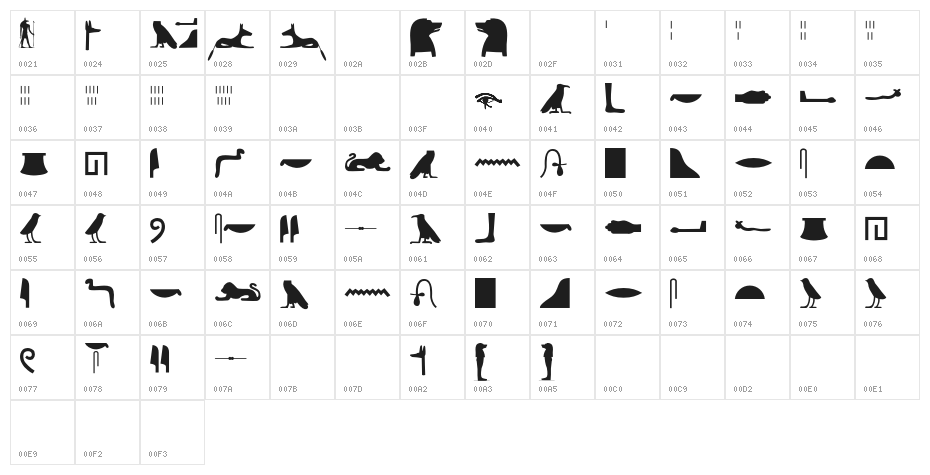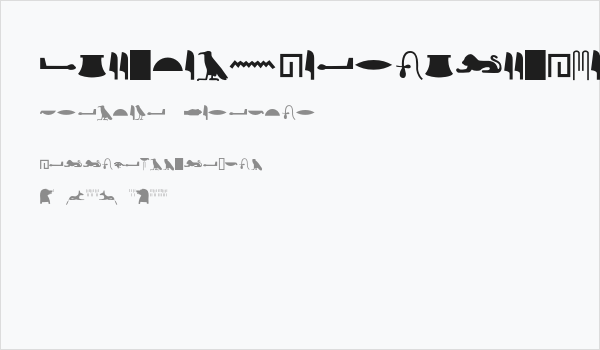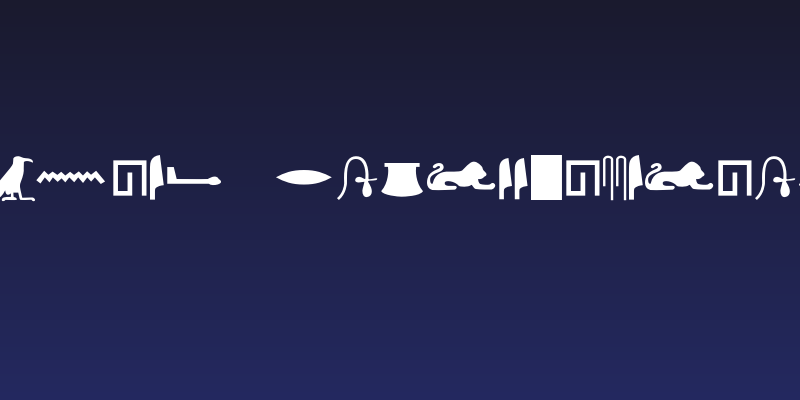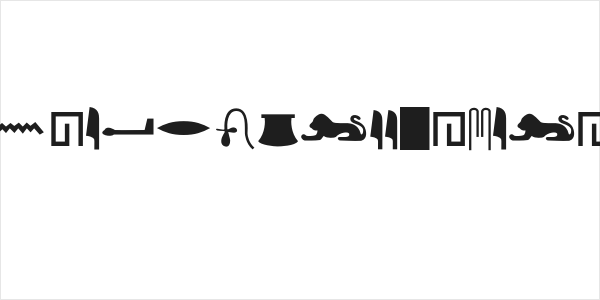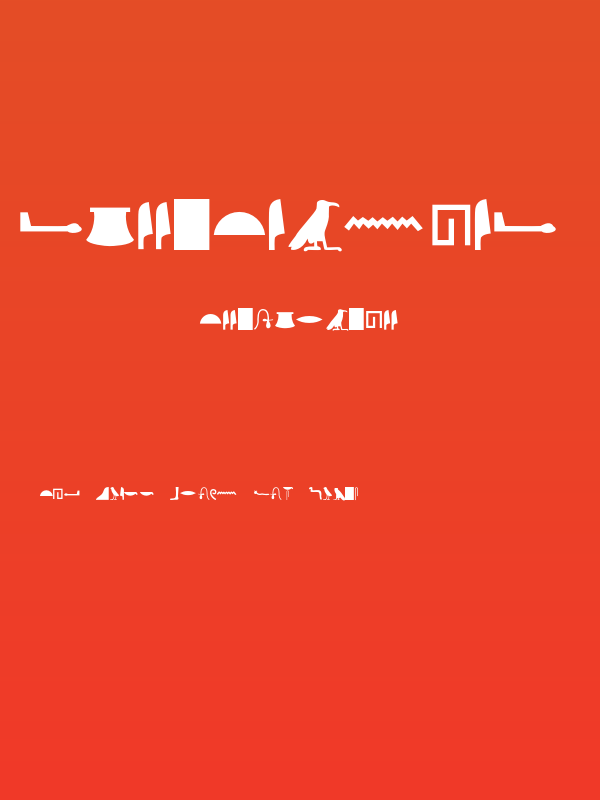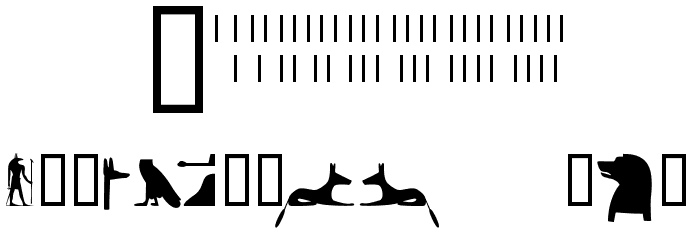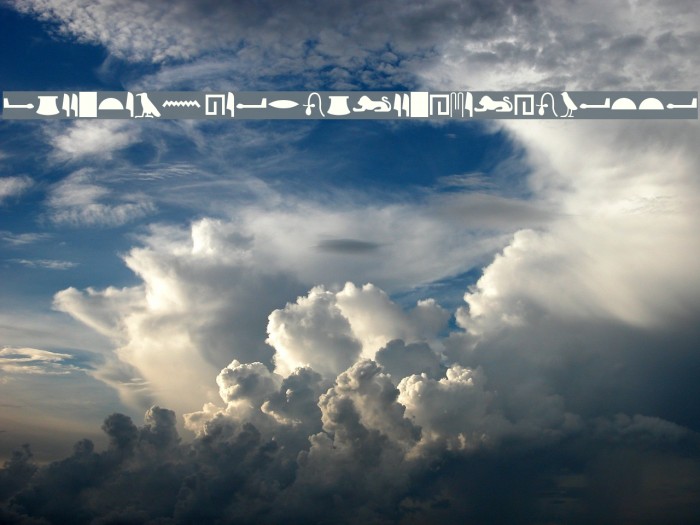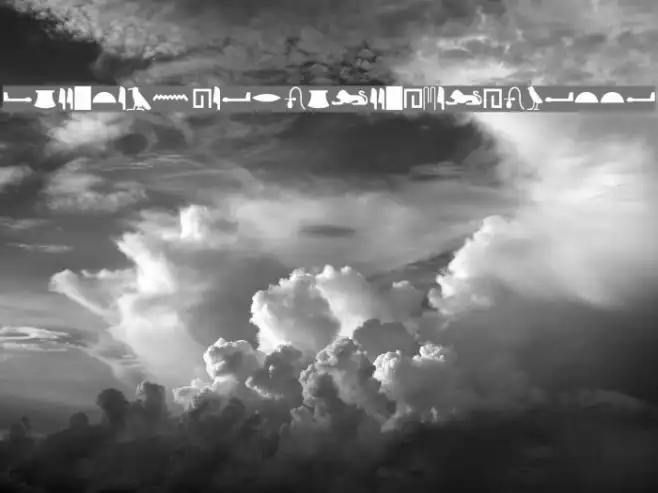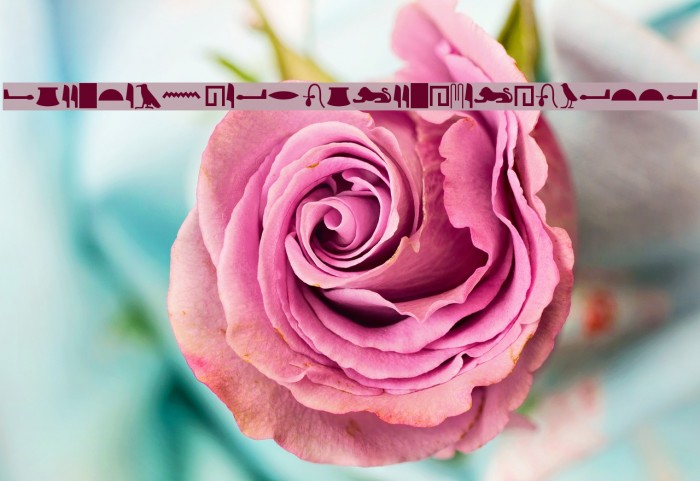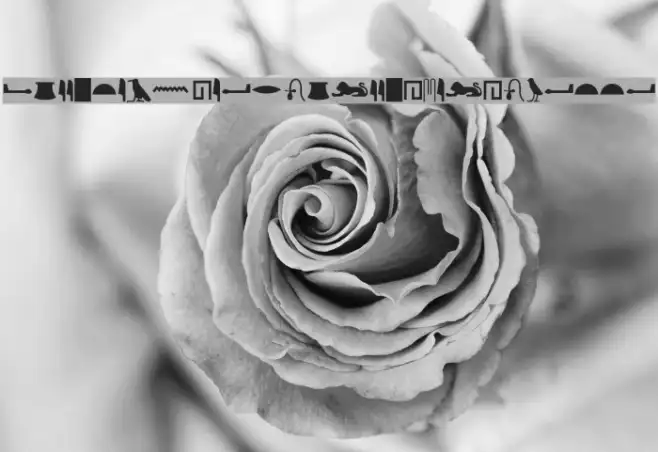
EgyptianHieroglyphsSilhouette Font
EgyptianHieroglyphsSilhouette Description
A collection of silhouette-style Egyptian hieroglyphs, featuring a variety of pictorial symbols such as birds, animals, tools, and abstract shapes, all rendered in solid black with clear, bold outlines and no internal detail.
| Overall Style | Decorative, Historical |
| Use Case | Display, Thematic graphics, Educational visuals |
| Proposed Projects | Historical displays, educational materials, themed posters, museum signage, decorative art, and cultural event branding. |